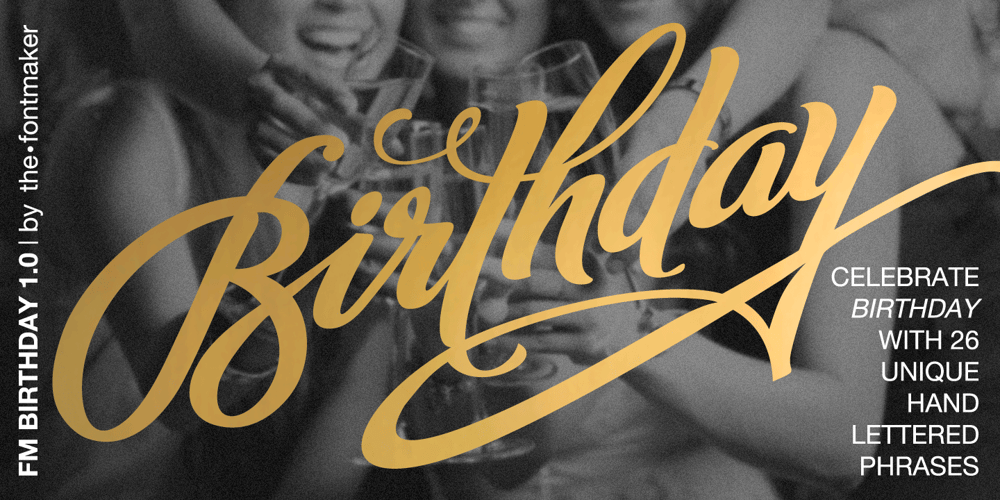
FM Birthday 1.0 Font Family was designed by Jordan Jelev and published by The Fontmaker. FM Birthday 1.0 contains 1 styles and family package options. FM Birthday 1.0 consists of 26 birthday related words and phrases — all custom made and handwritten. Add a personal touch to your greeting cards or party invitation designs with the help of these hand lettered captions.